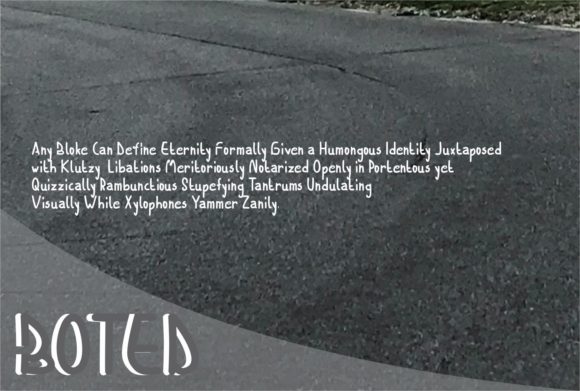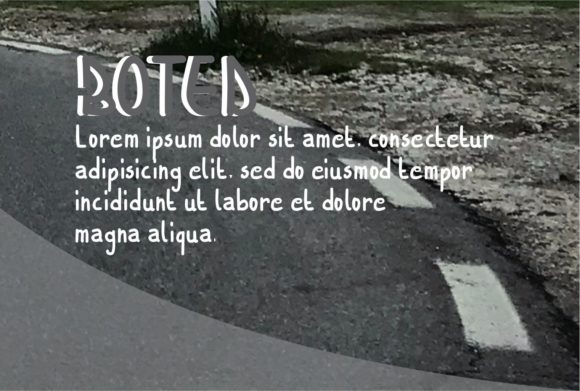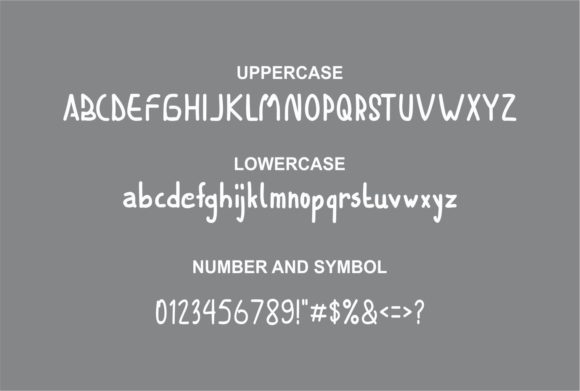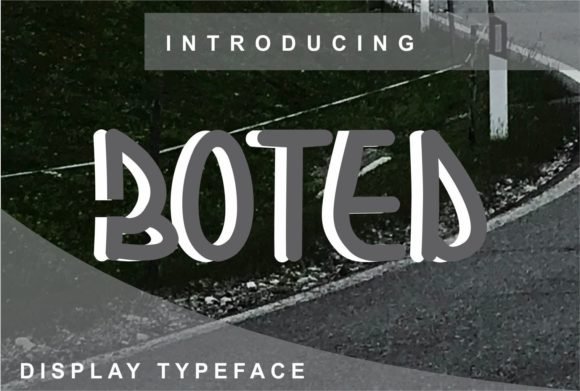
Introduction to Boted Font
Boted is an adaptable and trendy display font.
Key Features of Boted Font
Why Choose Boted Font?
Boted Font offers exceptional quality and versatility, making it a valuable addition to your design toolkit. Whether you’re creating for personal projects or commercial use, Boted Font delivers professional results.